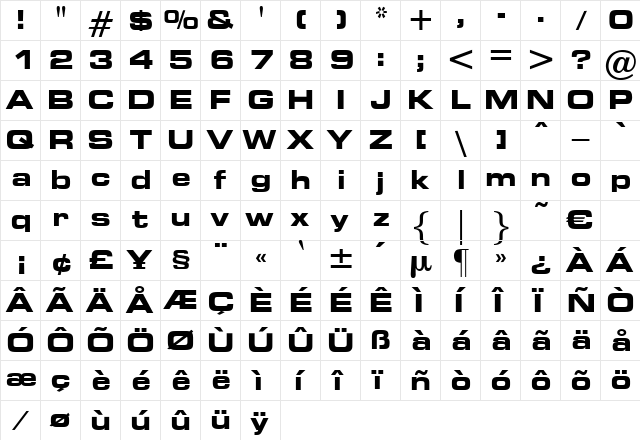
TheklaBoldExtended Regular
Design Context for TheklaBoldExtended Typeface
TheklaBoldExtended takes a measured approach to typography — its balanced proportions and neutral character make it a reliable workhorse for both digital and print work. The heavy weight commands attention and anchors typographic hierarchies.